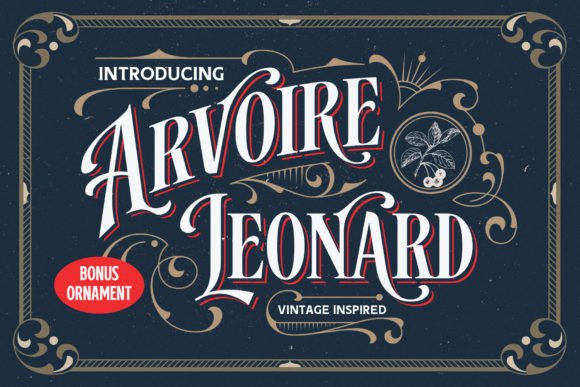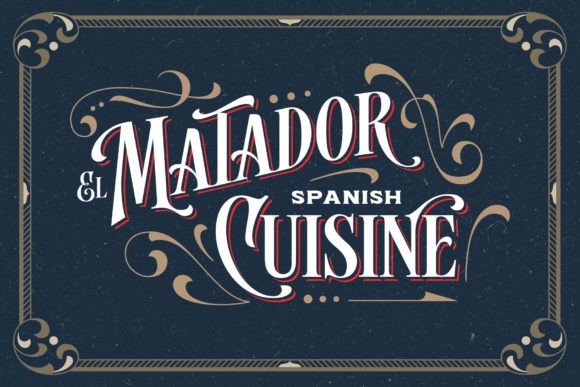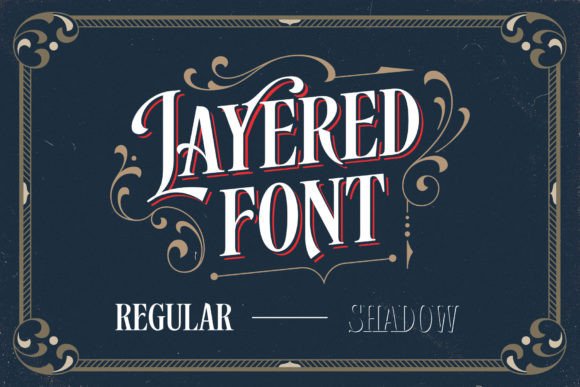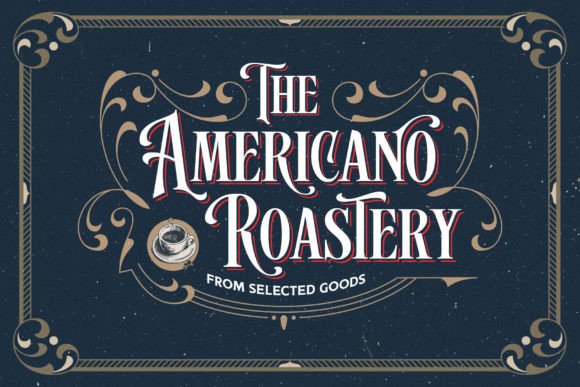
Arvoire Leonard Font
About the Arvoire Leonard Font
Explore the possibilities with Arvoire Leonard Font, a font that offers both beauty and functionality. The brand new exploration inspired by the typography from the 19th century, we proudly present “Arvoire Leonard” the modern vintage font that comes in Regular and Shadow.
Collected from many references such as vintage signage, logos, badges, and old-fashioned graphics. Arvoire Leonard is An all-caps font, carefully crafted with an elegant touch but still with a classic feel.
Arvoire Leonard is perfect for many display purposes. You can use this font for posters, labels, logos, signboards, t-shirts, book covers, decorations, merchandise, and more!
Arvoire Leonard Font Usage Examples
Arvoire Leonard Font Example